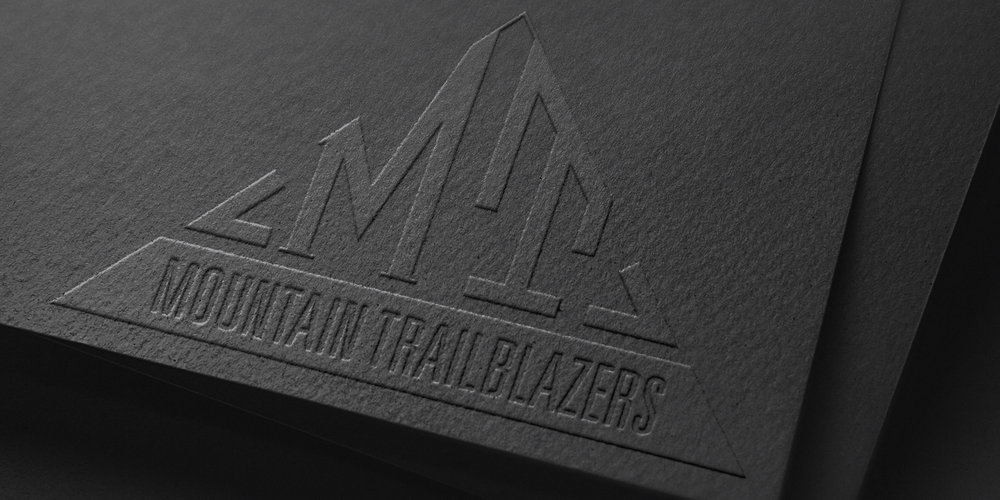
MFC Triangulus Monogram Font Family was designed by Jim Lyles, Brian J. Bonislawsky and published by Monogram Fonts Co.. MFC Triangulus Monogram contains 4 styles and family package options. The inspiration source for Triangulus Monogram is a vintage publication called “Bibliotheque D.M.C: Alphabets et Monogrammes 2nd Series”. Found in that specimen book, is an alternative to the traditionally seen diamond monogram style. A triangular form, this monogram style is now digitally recreated and revived for modern use in Triangulus Monogram, with two letter monograms and a selection of additional frame styles for a final classy touch! Download and view the MFC Triangulus Monogram Guidebook if you would like to learn a little more.